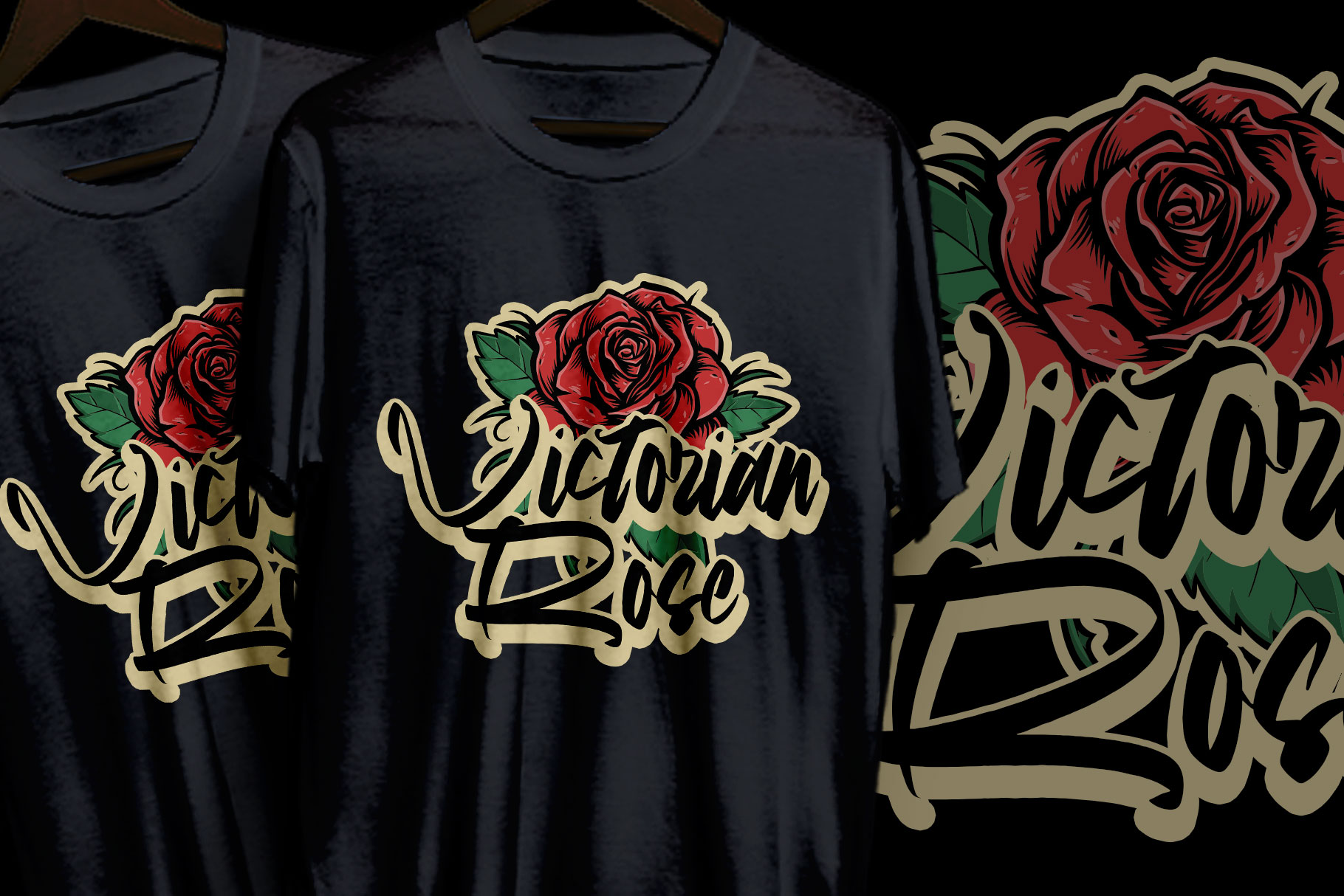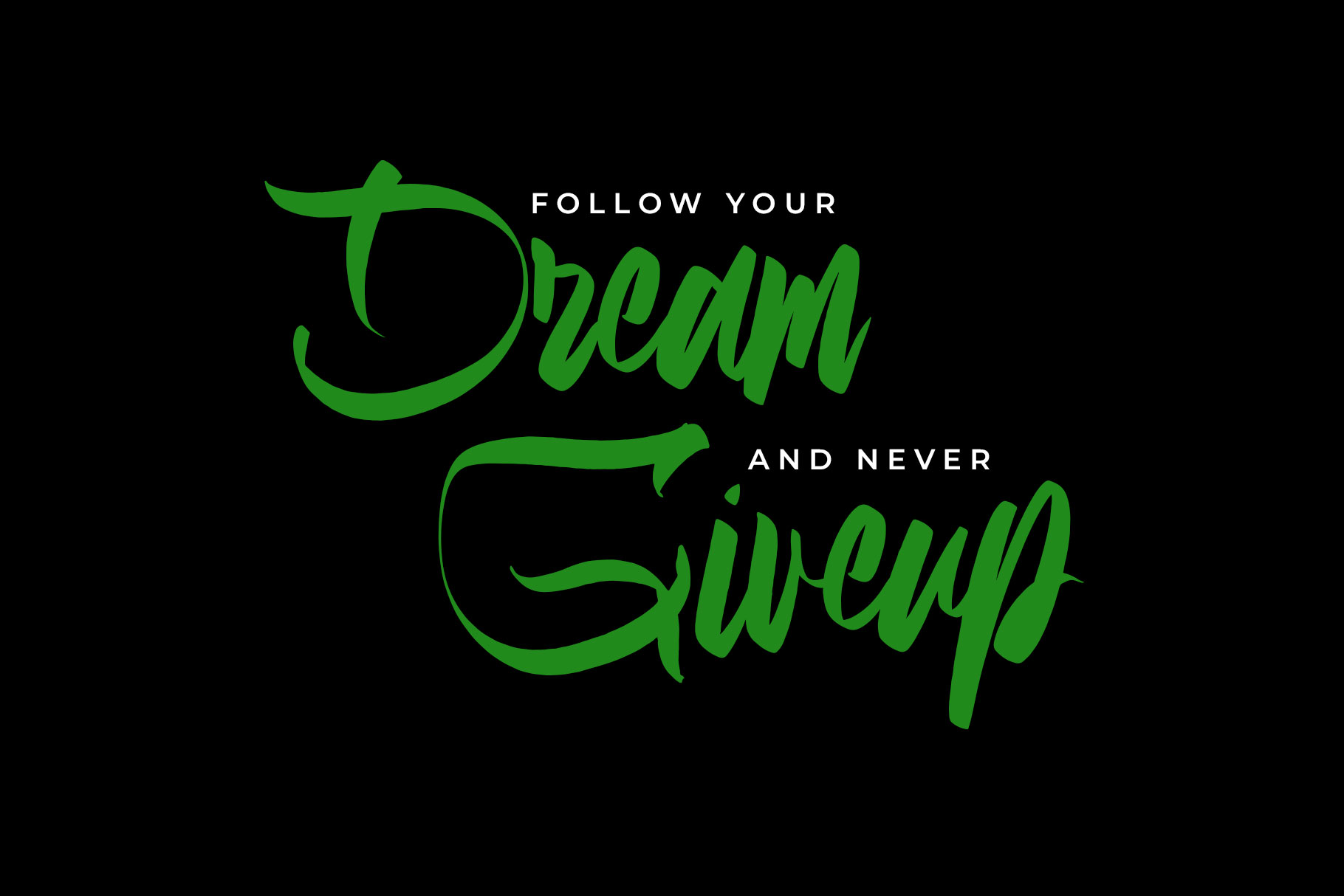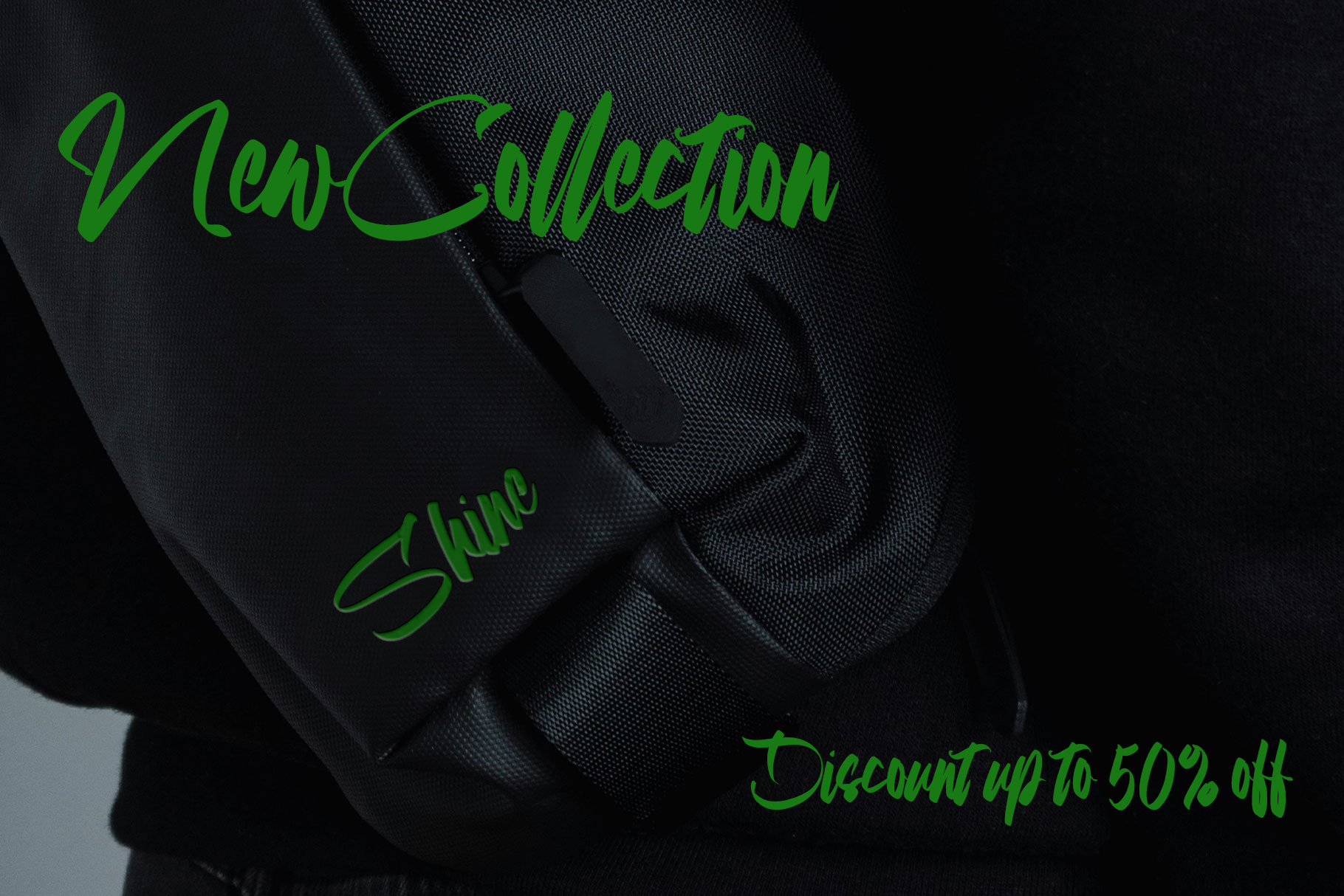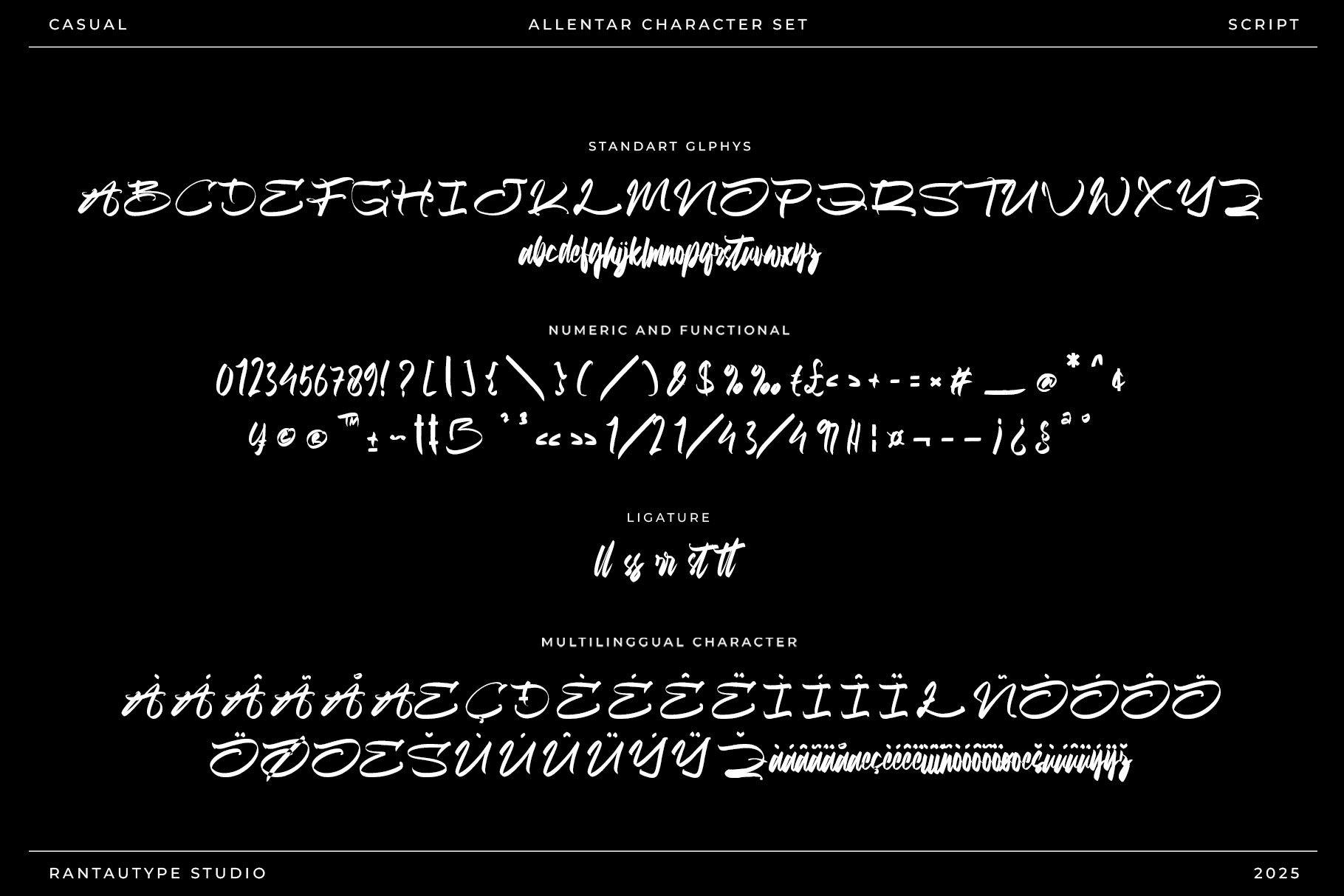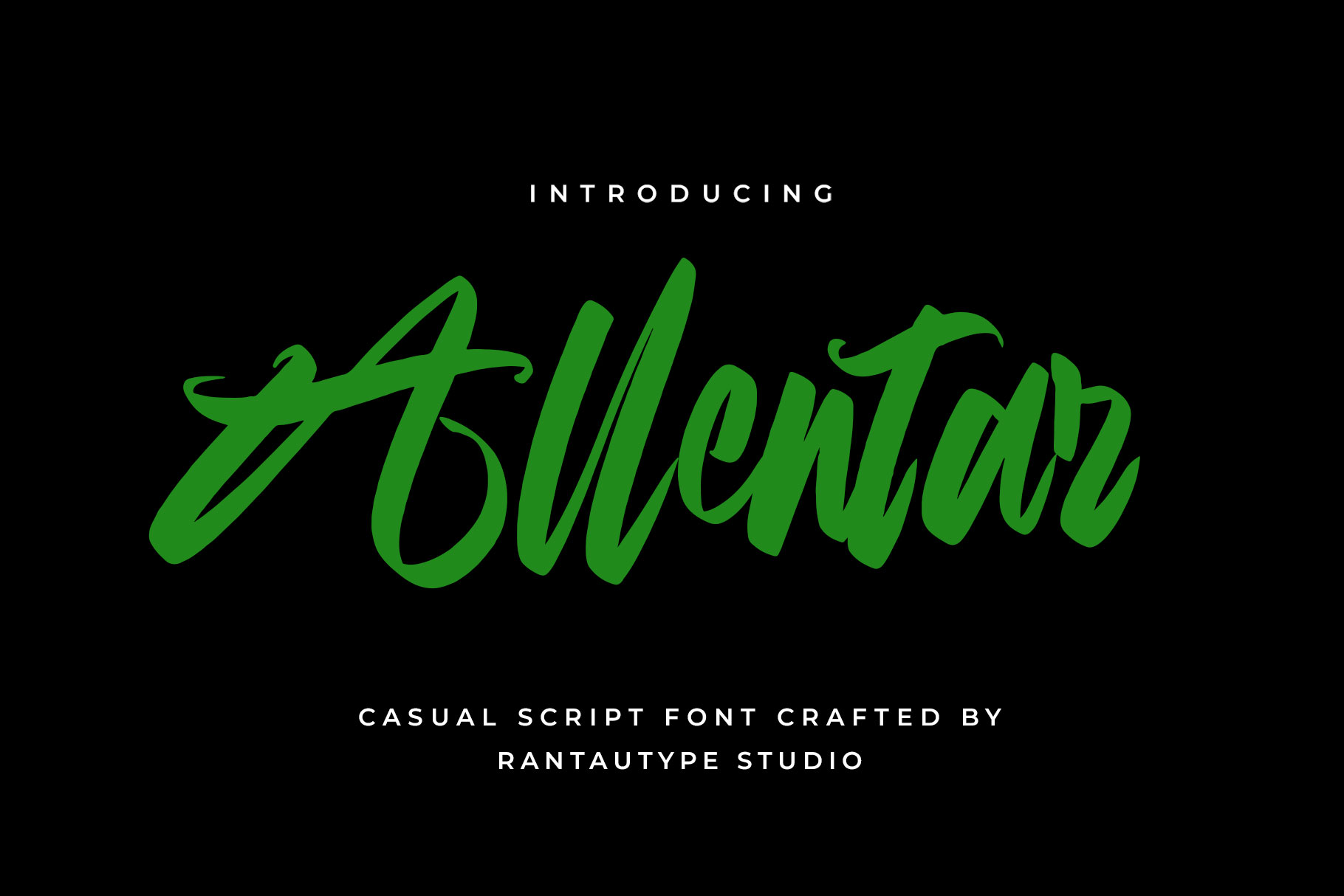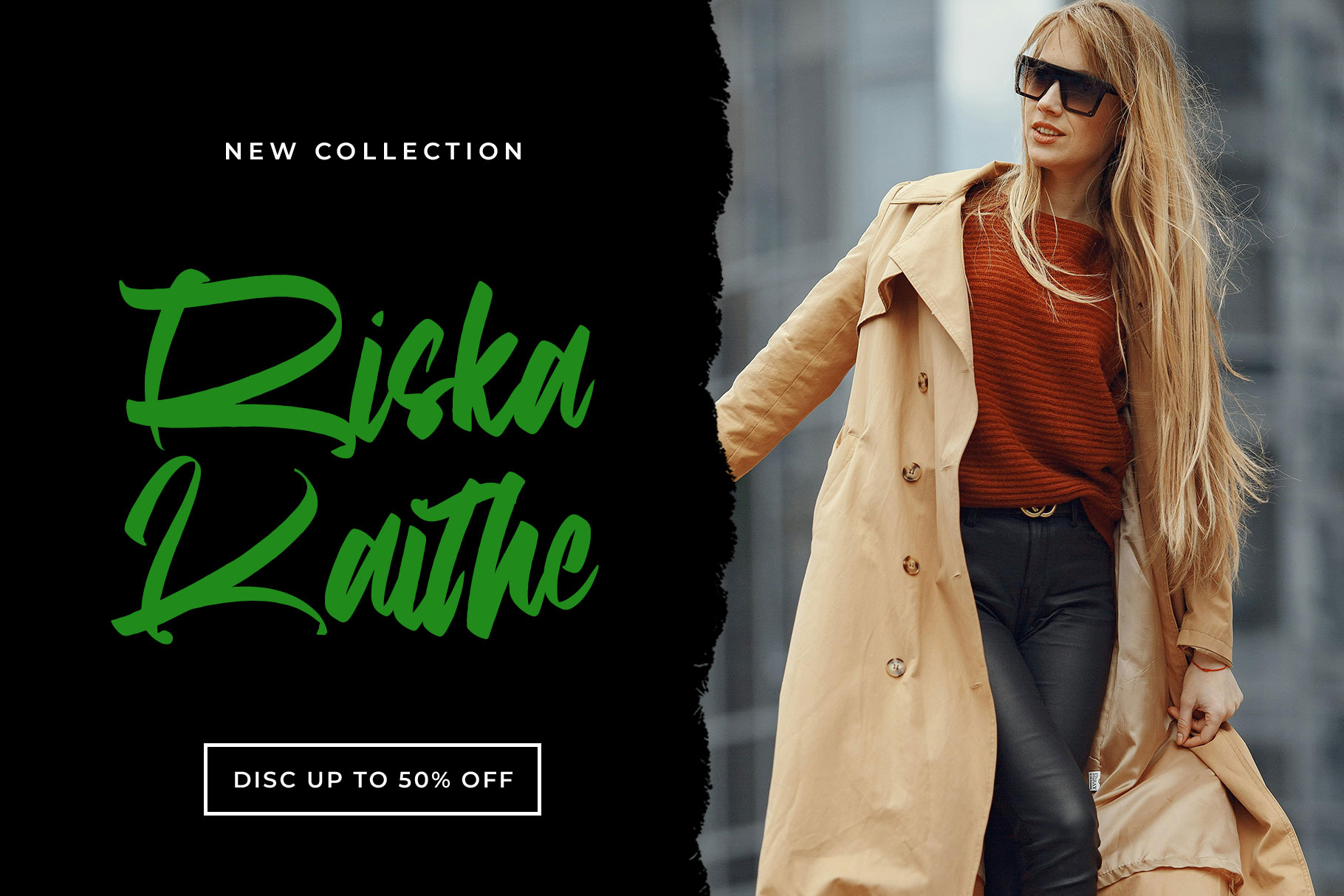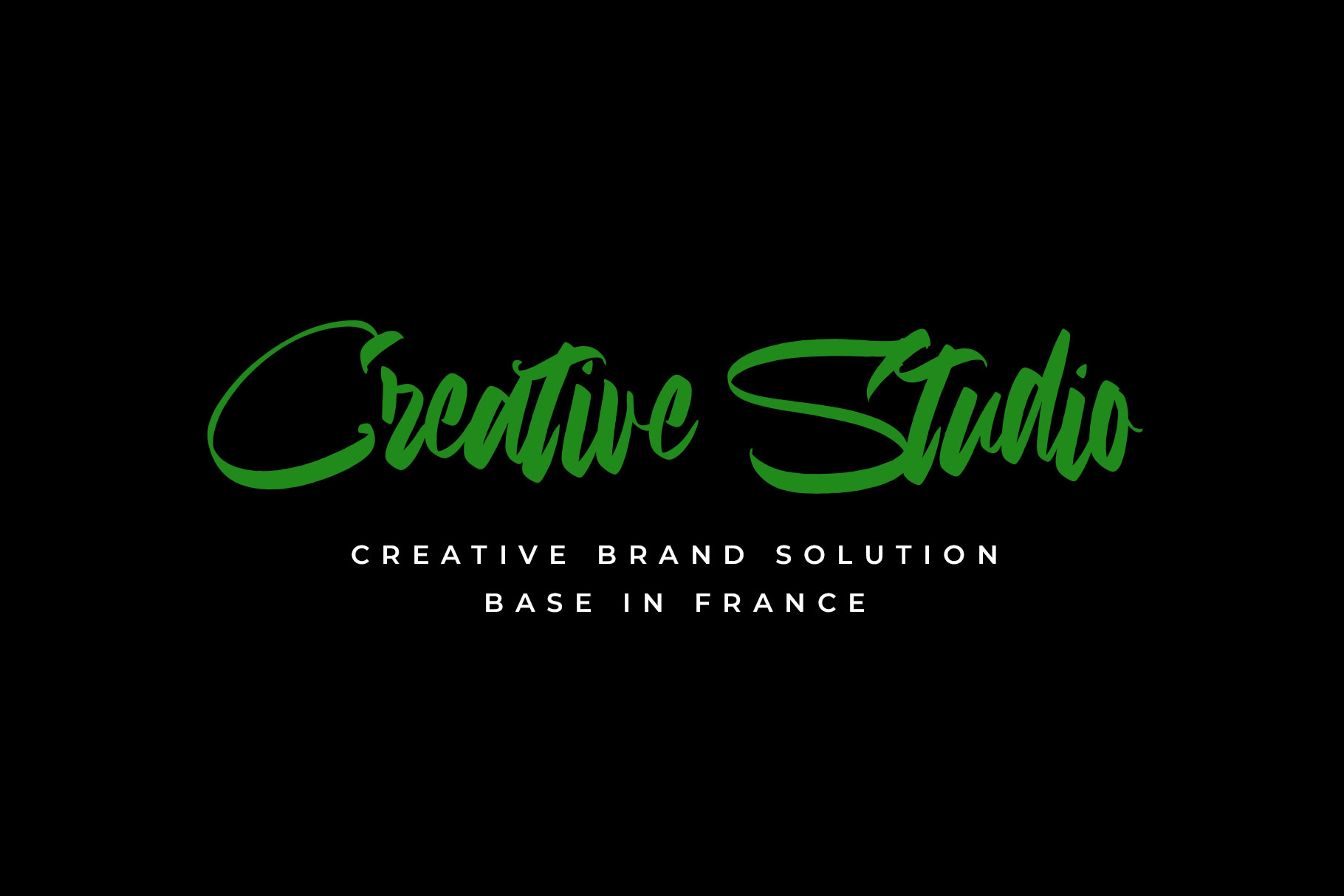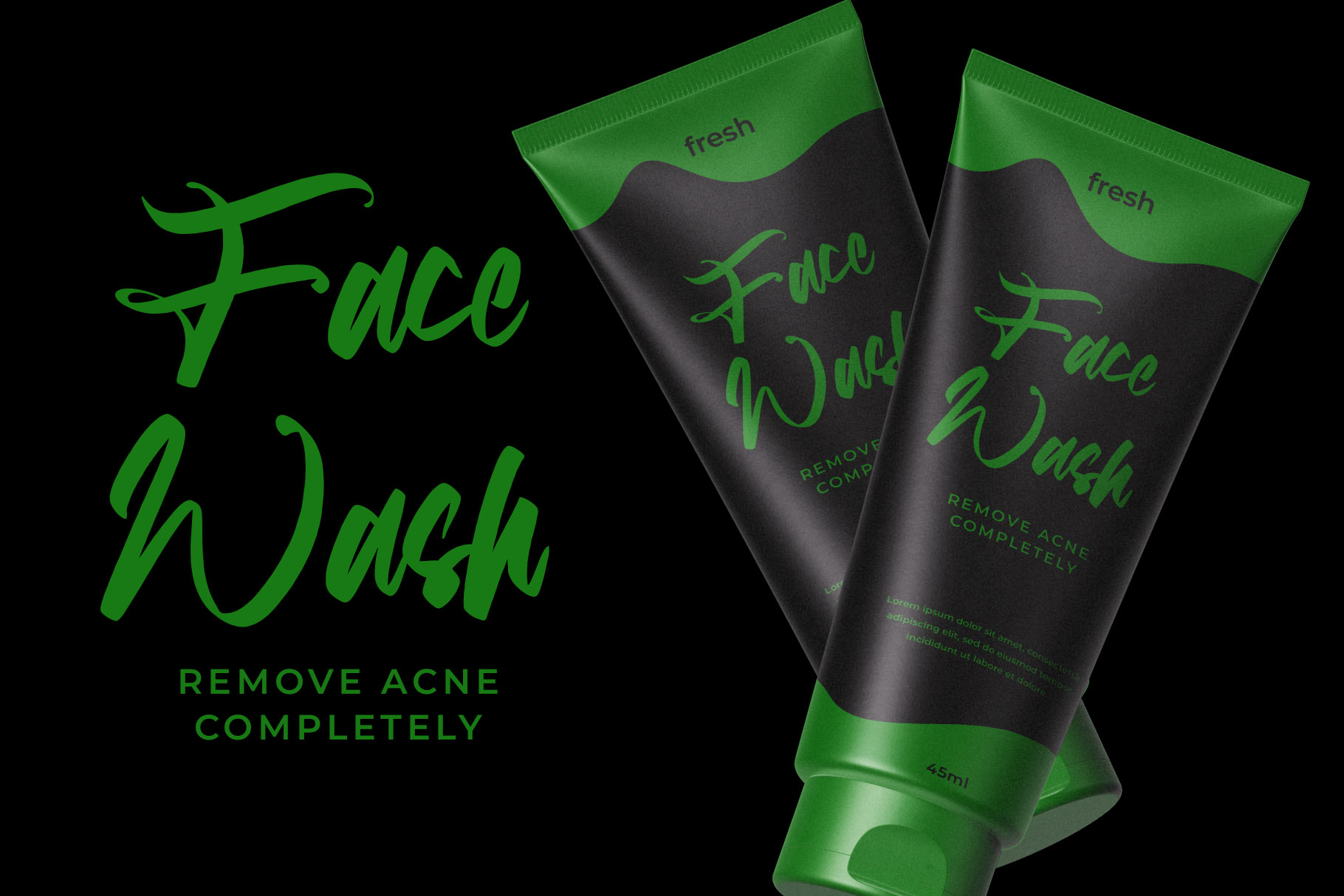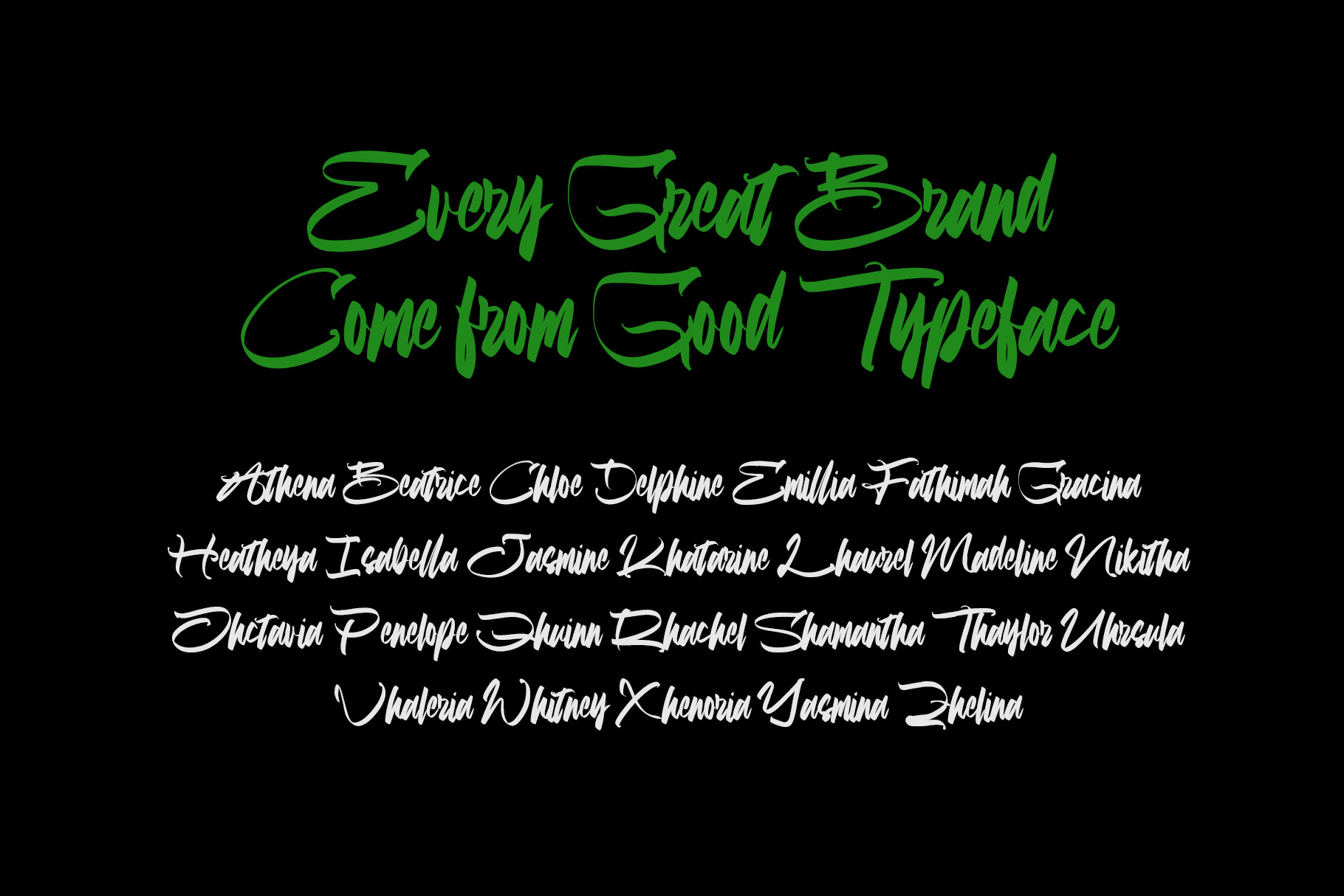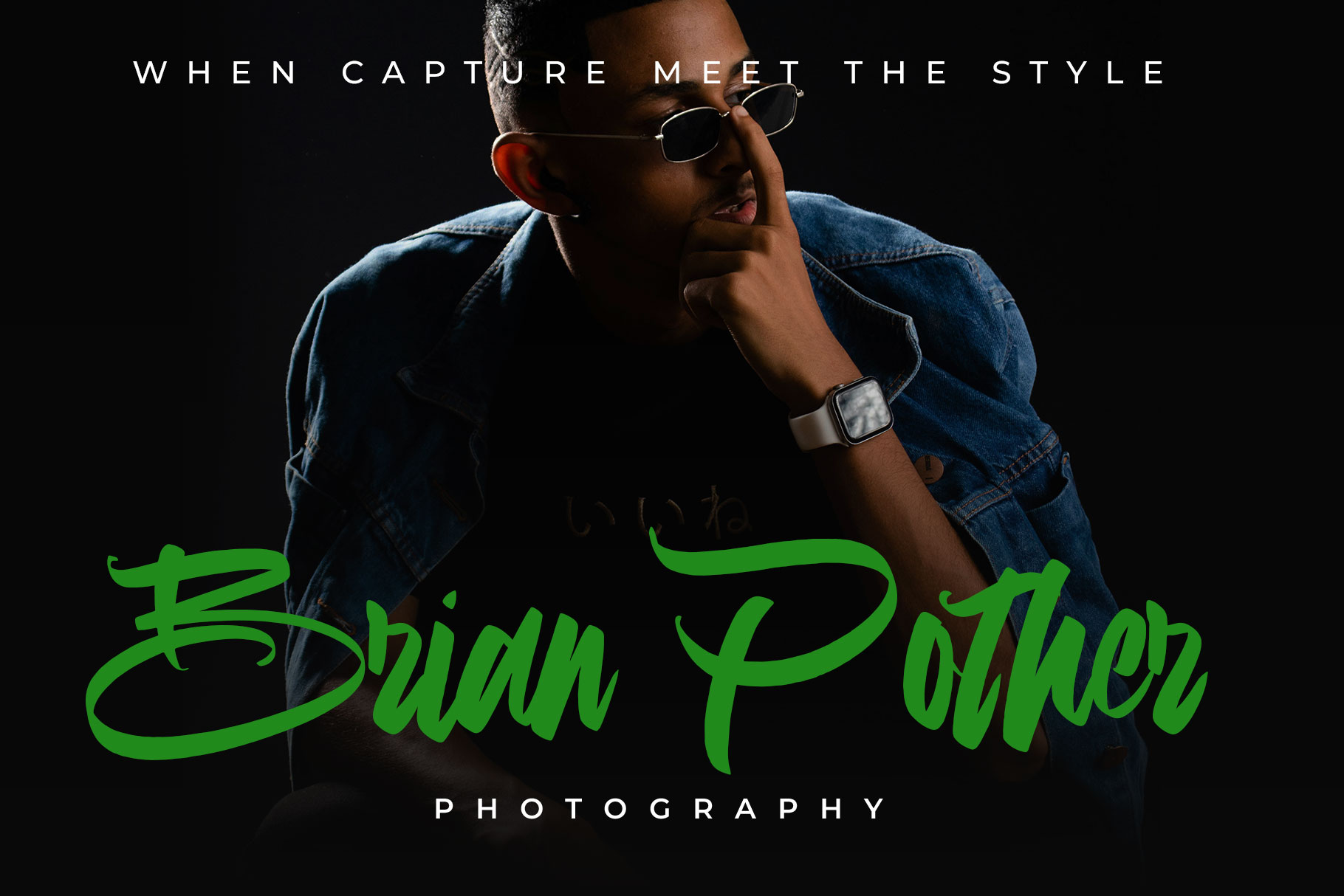
Allentar Casual Script Font
Allentar is casual script font made by rantautype studio. Allentar come with bold and stylish character to make your design project awesome. Allentar is a perfectly choice for any creative endeavor, chic, lifestyle design such as logotype, advertisements, watermark on photography, stationery, branding project, display and magazine, invitation, corporate brand, product design, label, business project and many other project with modern touch.